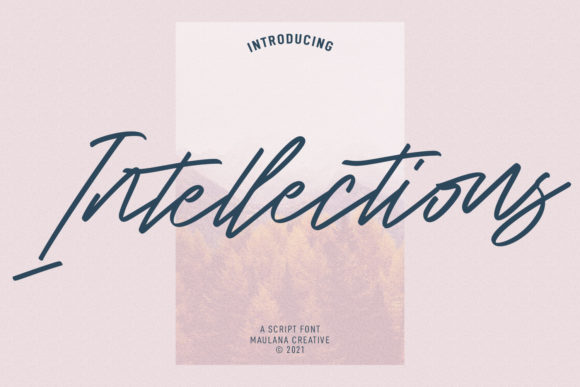
Adorn your designs with the enchanting allure of Intellections Script, a captivating script font that exudes sophistication and grace. Crafted with meticulous attention to detail, this font possesses an undeniable charm that will elevate your creations to new heights.
Immerse yourself in the beauty of Intellections Script, a font that captivates with its smooth, flowing lines and elegant curves. Each letter dances across the page, whispering tales of romance and intrigue. Let your imagination soar as you explore the boundless possibilities that await you with this exquisite font.
With Intellections Script, you can effortlessly add a touch of timeless elegance to your wedding invitations, imbue your thank-you cards with heartfelt warmth, or create mesmerizing quotes that resonate with your audience. Embrace the versatility of this font as you design logos that exude professionalism, business cards that leave a lasting impression, and a myriad of other projects that demand a touch of sophistication.
Intellections Script is more than just a font; it's an artistic expression that breathes life into your designs. Its graceful strokes evoke a sense of nostalgia, while its contemporary flair ensures that your creations remain relevant and captivating. Whether you're a seasoned designer or just starting out, Intellections Script is the perfect font to add a touch of magic to your work.
Indulge in the beauty of Intellections Script today and unlock a world of creative possibilities. Let your designs blossom with elegance and charm as you harness the power of this extraordinary font.